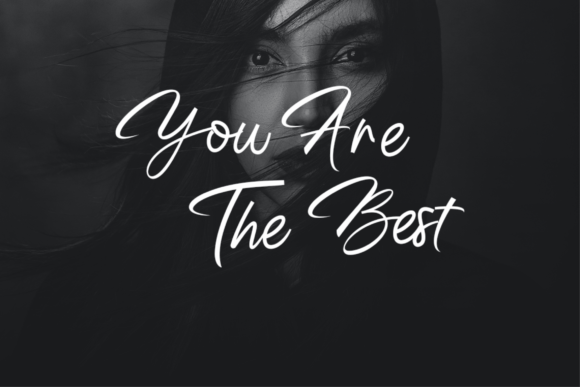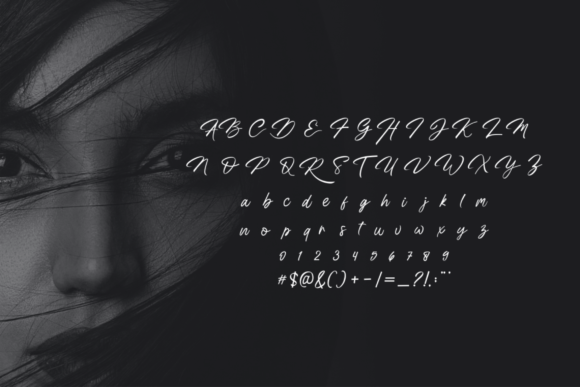
Introduction to Ratune Font
Have you ever been stuck on a creative project, desperately searching for the perfect font to bring your vision to life? The blank page stares back at you, taunting you with its emptiness, until – voilà! – you stumble upon that elusive gem, the Ratune Font. Its flowing, authentic handwriting style has a way of elevating even the most mundane designs into something truly exceptional.
As a designer, you know the value of having access to high-quality design resources that can elevate your work and make it stand out from the crowd. The Ratune Font is a game-changer, offering a unique and versatile aesthetic that’s perfect for a wide range of creative projects, from logo design to t-shirt printing and beyond.
Key Features of Ratune Font
- High-quality design resource with a transparent background, ideal for creative projects that require a unique look.
- Unique and modern design, featuring a distinctive style that sets it apart from other fonts in its category.
- Perfect for use in creative projects such as logos, branding materials, and advertising campaigns.
- Can be easily customized and edited using popular design software, including Adobe Photoshop and Illustrator.
Honest Review: Ratune Font
I recently came across the Ratune Font, and I must say it’s been a game-changer for my creative projects. The moment I downloaded it, I was impressed by its high quality and versatility.
What works well: ✨ The Ratune Font comes with a transparent background, which makes it perfect for designs that require a clean and minimalist look. I’ve used it for several projects, and it always adds a touch of sophistication. Additionally, it’s free to download, making it an excellent design resource for anyone looking to elevate their work without breaking the bank.
What doesn’t work so well: ⚠️ While the Ratune Font is highly customizable, I’ve found it to be a bit limited in terms of its font weight options. It would be great to see more variations, especially for projects that require a bold or italic font.
Overall, I’m thoroughly impressed with the Ratune Font. It’s a high-quality design resource that’s perfect for creative projects, and its transparent background makes it a standout feature. If you’re looking for a reliable font to add to your design arsenal, I’d definitely recommend giving it a try.
- Perfect for: Creative projects, minimalistic designs, and branding
- Limitations: Limited font weight options
Tips for Getting the Most Out of Ratune Font
To get the most out of Ratune Font, experiment with different font sizes, colors, and styles to find the perfect combination for your design. You can also use the transparent background feature to create unique and eye-catching designs.
Ratune Font is perfect for a wide range of creative projects, including logos, brochures, and presentations. Its high quality and transparent background make it an ideal choice for designers who want to create professional-looking designs quickly and easily.
Can I use the Ratune Font with a transparent background?
Yes, the Ratune Font supports transparent backgrounds, allowing you to use it with a clear or semi-transparent background in your design. This makes it ideal for use in graphics, logos, and other creative projects where a transparent background is required.